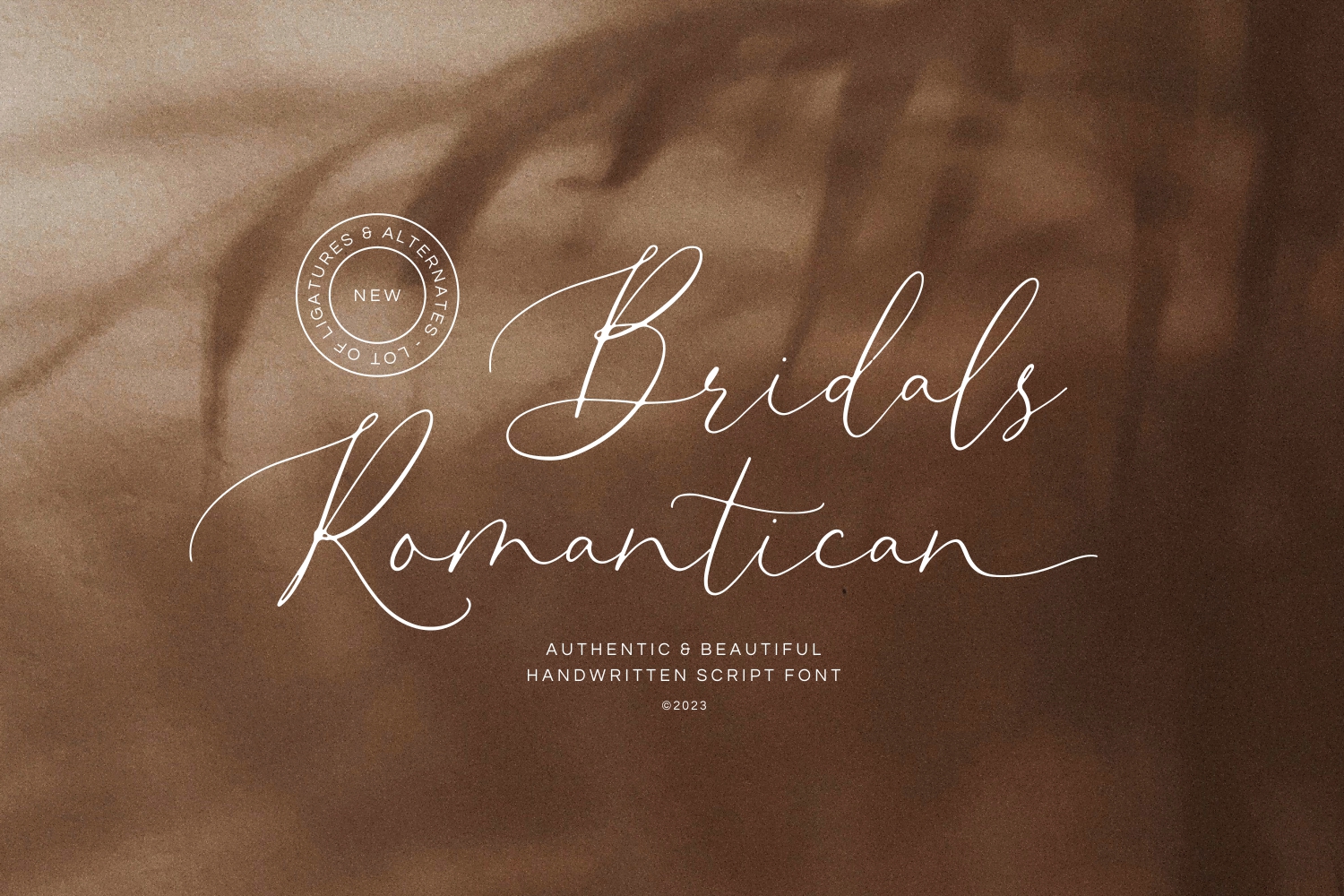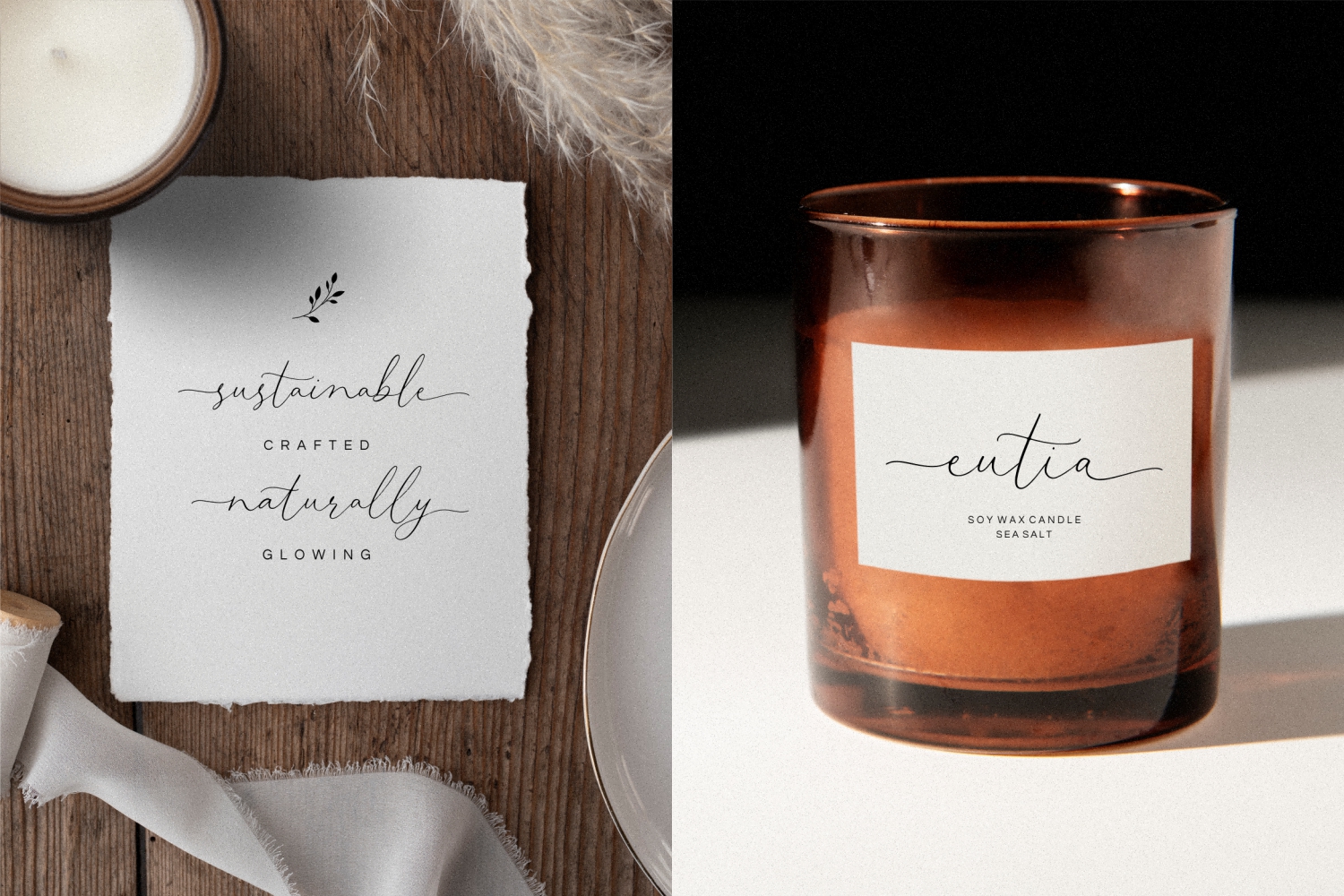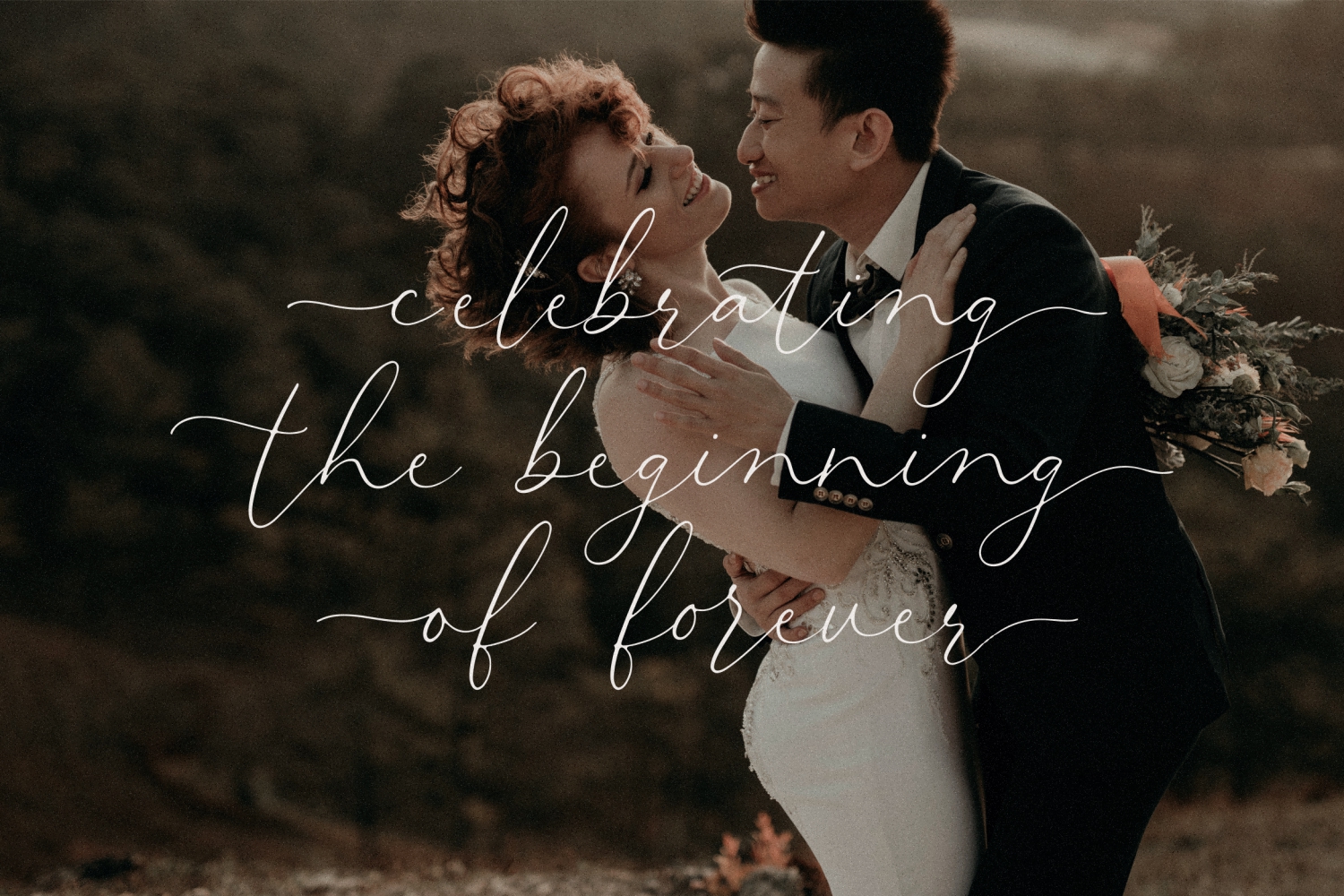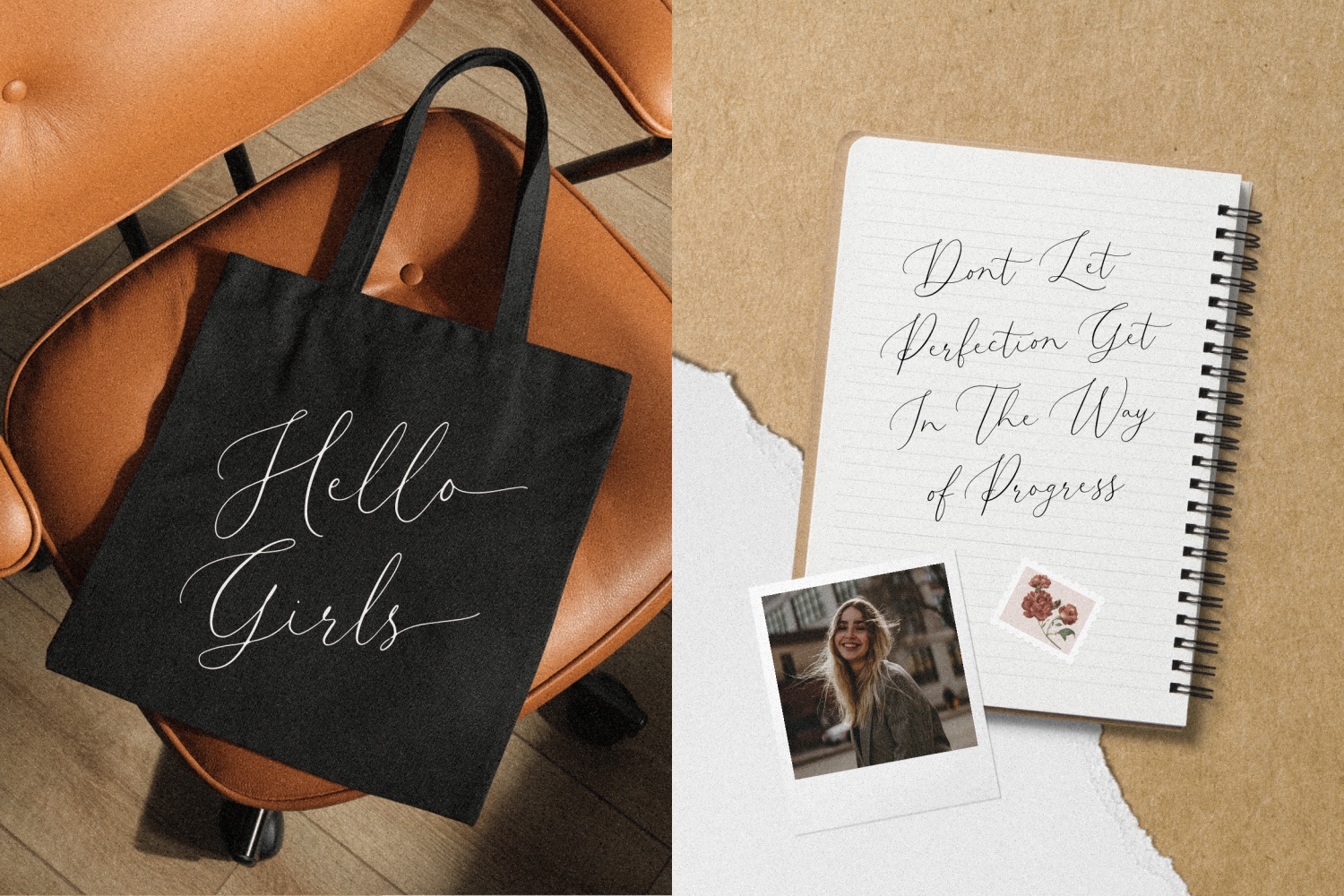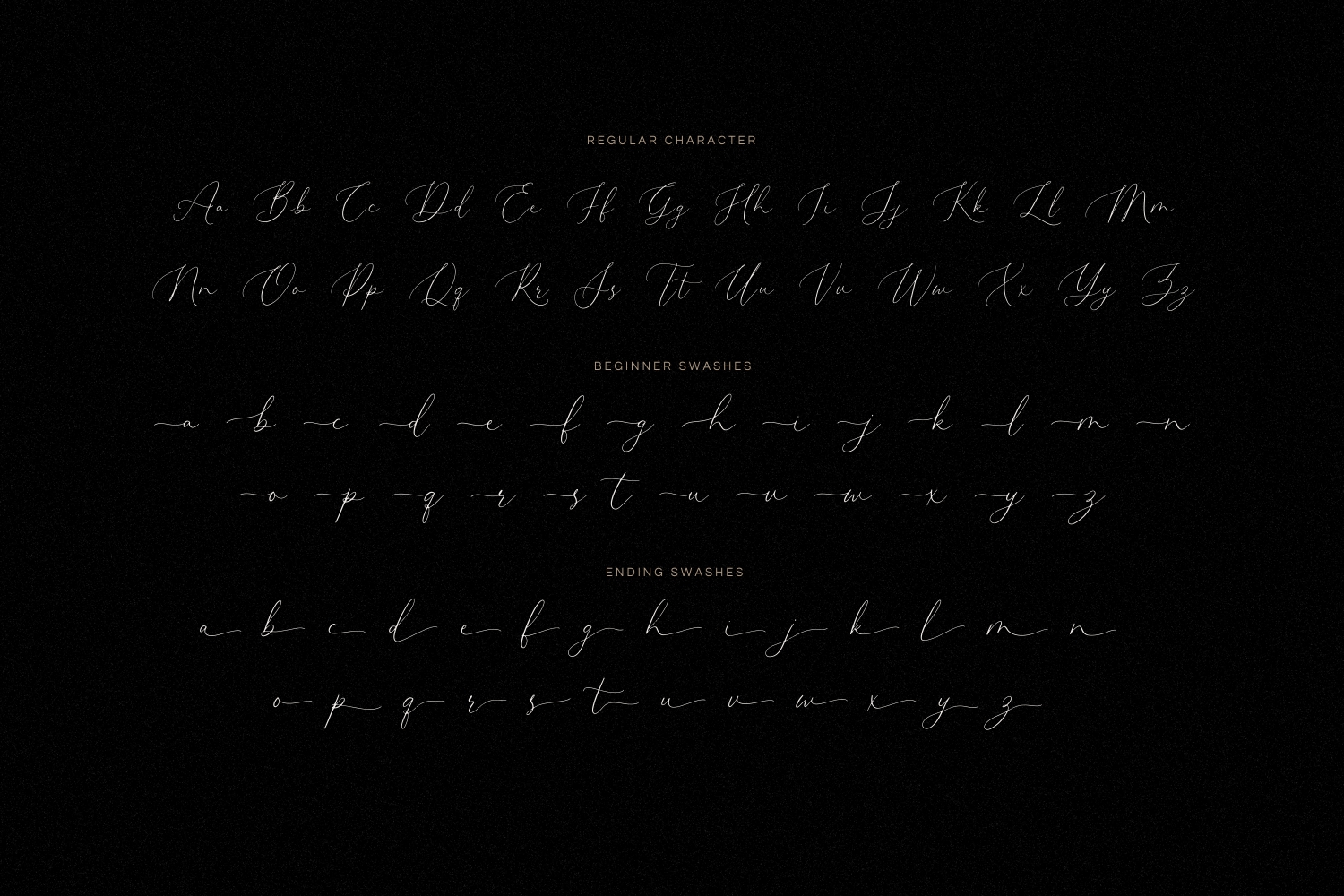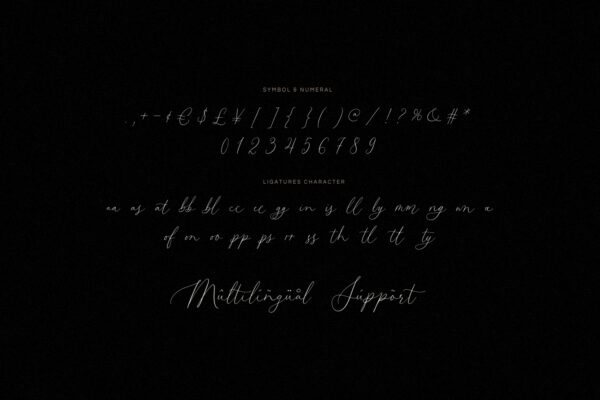
Bridals Romantican is a delicate and graceful handwritten script font that captures the essence of elegance and romance. With its flowing strokes and refined curves, this font is perfect for wedding invitations, branding projects, love letters, and other designs that call for a personal and sophisticated touch. The font comes with a complete set of ligatures and alternate characters, making it highly customizable and full of charm.
Whether you’re creating stationery for a boutique brand or designing aesthetic social media graphics, Bridals Romantican adds a soft and timeless feel. It supports multilingual characters and includes stylistic swashes, ligatures, symbols, and numerals. Offering everything you need for a high-end, handcrafted look.
Bridals Romantican